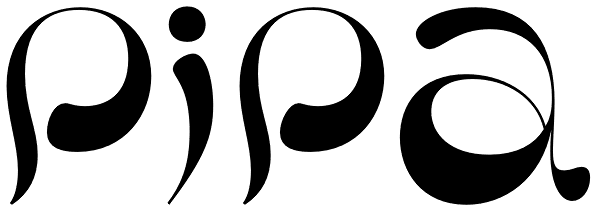
Pipa
Originally made for a health food store chain we cannot name, Pipa is the embodiment of organic display typography. Although it draws inspiration from some cold type ideas, like the uncredited Atlantis from VGC and a couple of older photo-lettering...